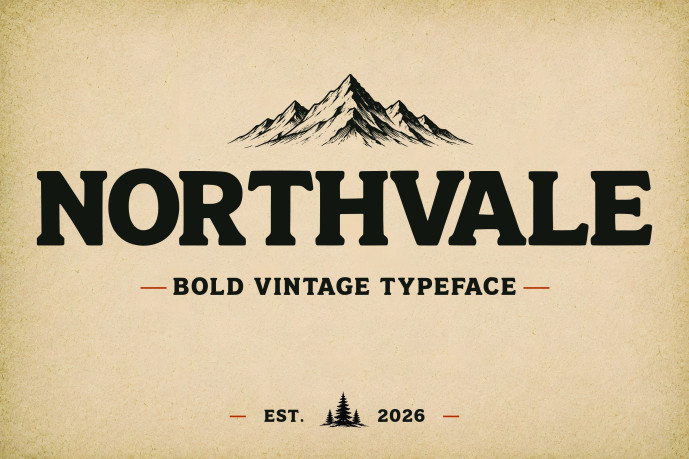
Northvale Font
Designer: Fadli Ali Basyar
Northvale is a bold vintage slab serif inspired by classic American heritage branding, old western wood type, national park posters, whiskey labels, and rugged outdoor apparel. Designed with strong geometric forms, subtle ink-trap details, and a timeless handcrafted feel, it delivers powerful readability while maintaining an authentic retro character.